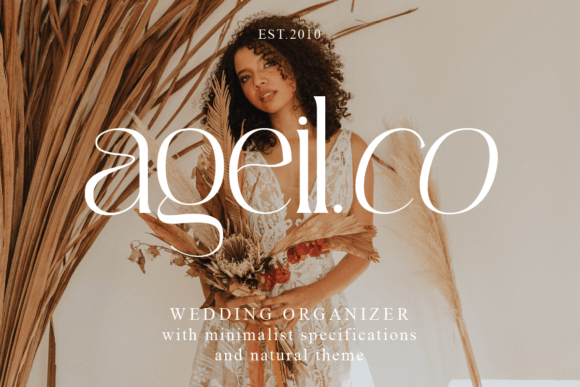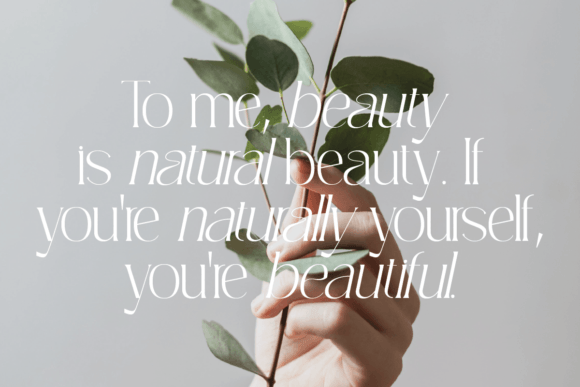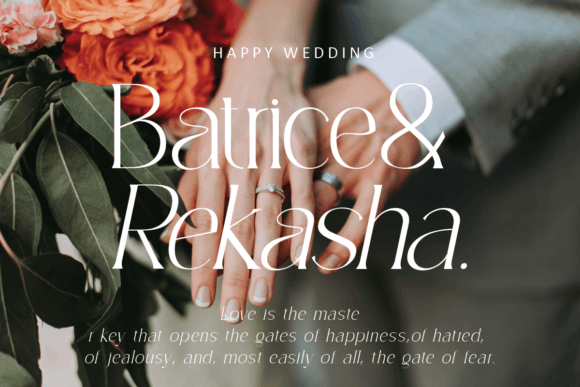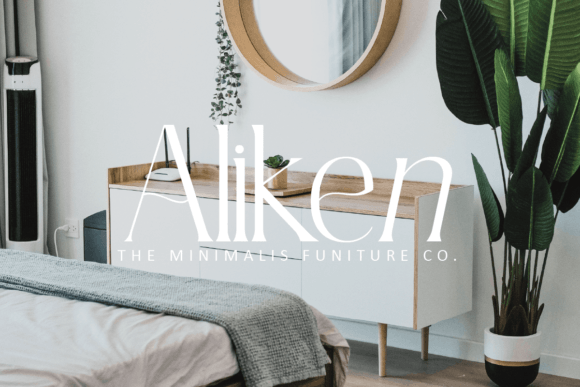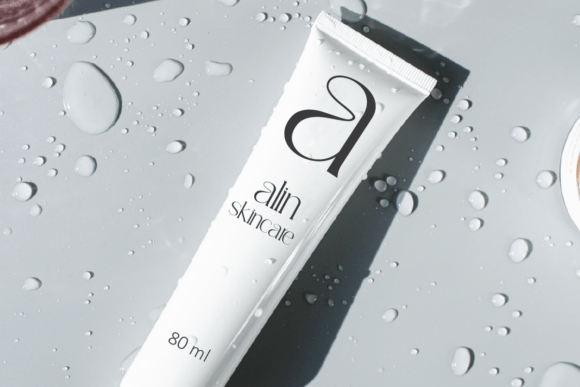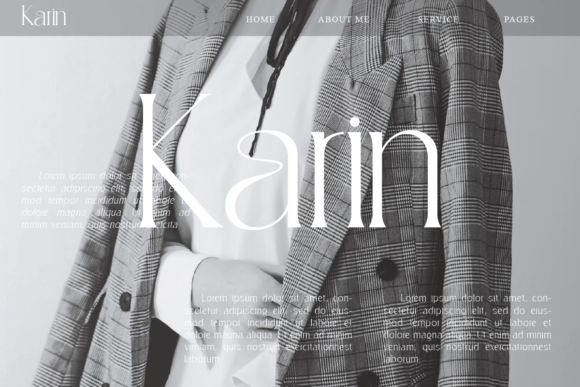
Introduction to Natural Cadence Font
Natural Cadence Modern serif Font typeface with beautiful alternate, special glyphs, and ornaments.
It’s a very versatile font that works great in large and small sizes Perfect for editorial projects, Logo design, Clothing Branding, product packaging, magazine headers, or simply as a stylish text overlay to any background image.